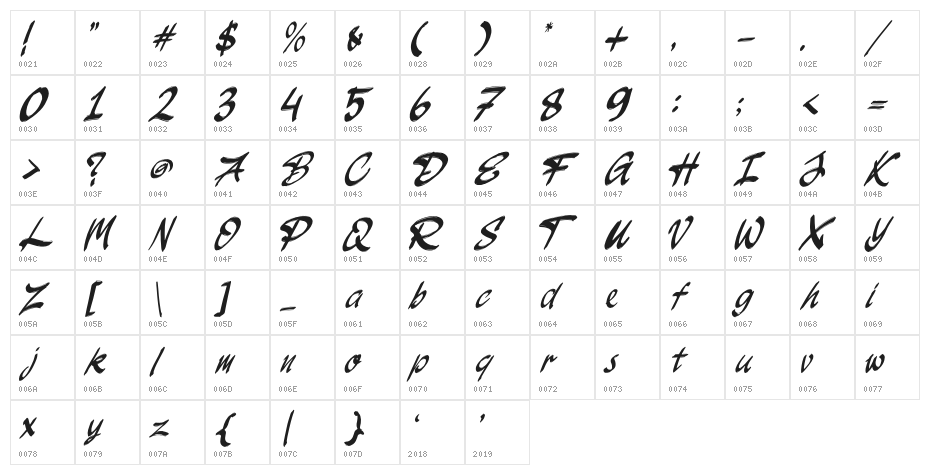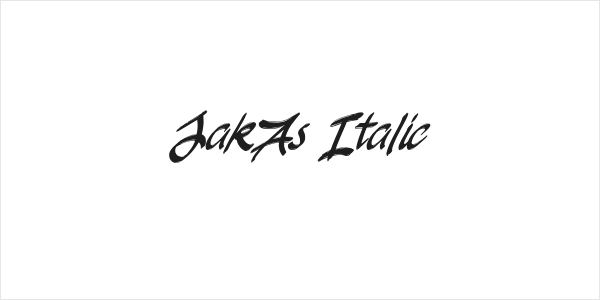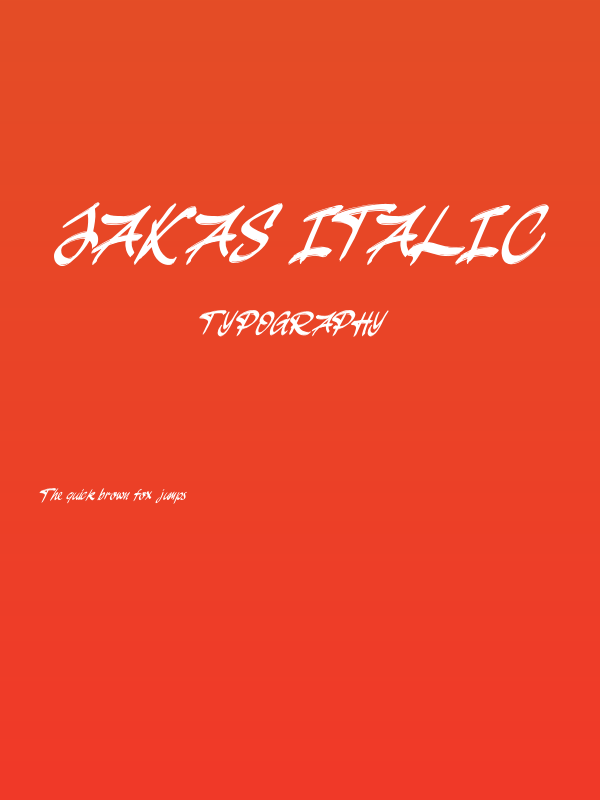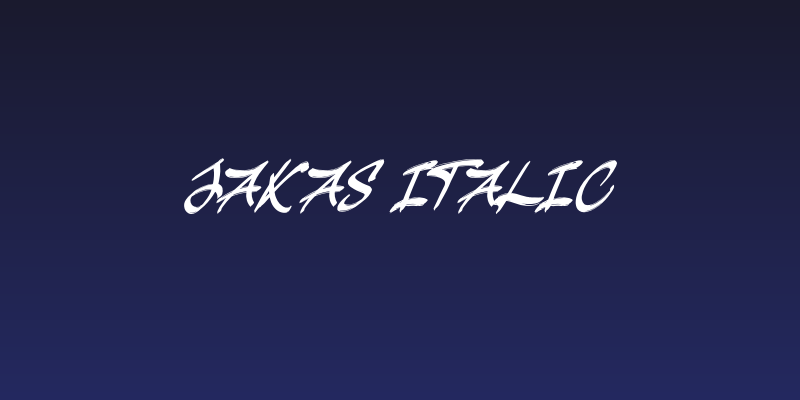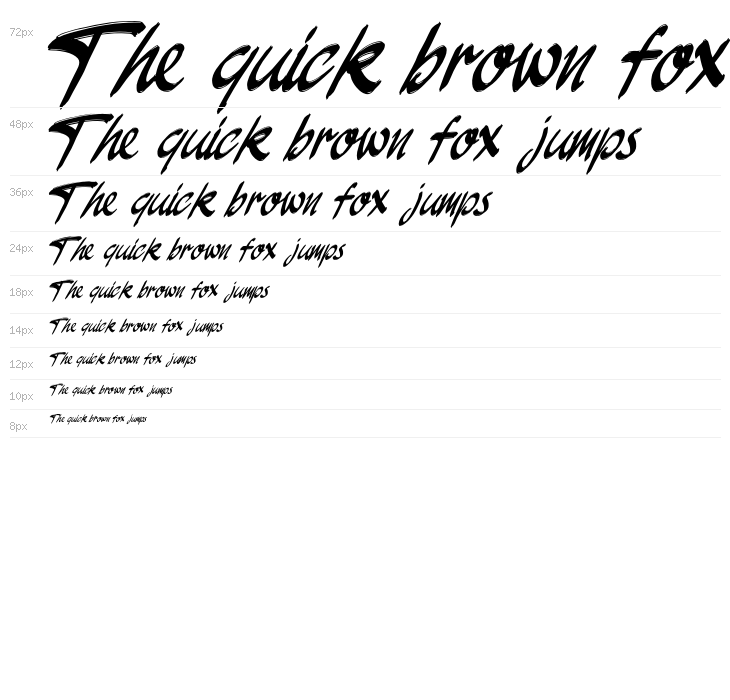
JakAs Italic Font
JakAs Italic Description
This font features a dynamic and expressive style, characterized by its italicized, cursive script that conveys a sense of motion and fluidity. The letters are bold and slightly slanted, with a brush-like appearance that adds a touch of elegance and flair. The uppercase and lowercase letters maintain a consistent style, with sweeping curves and sharp angles that create a visually striking effect. The numerals and special characters are equally bold, complementing the overall aesthetic. This font's unique style makes it suitable for creative and artistic projects, where a sense of individuality and expressiveness is desired.